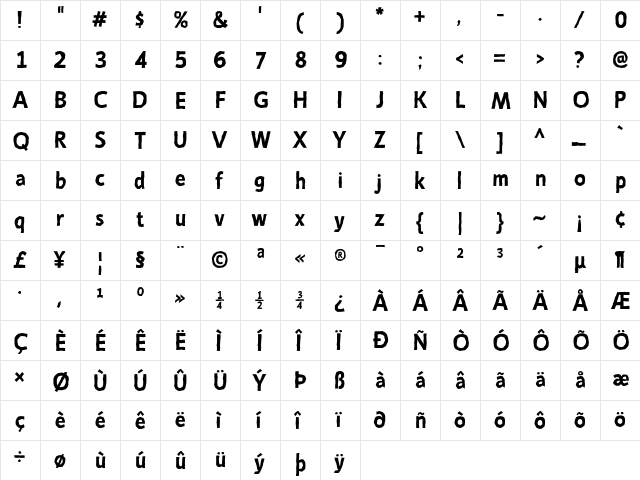
Emory Bold
Design Context for Emory Typeface
Emory offers clean, dependable letterforms without strong stylistic allegiance, making it a practical choice for designers who need flexibility. Its bold stroke weight gives it real presence on the page.
Pro Tip: Pair Emory with a font of contrasting weight or personality to build a more expressive typographic hierarchy.